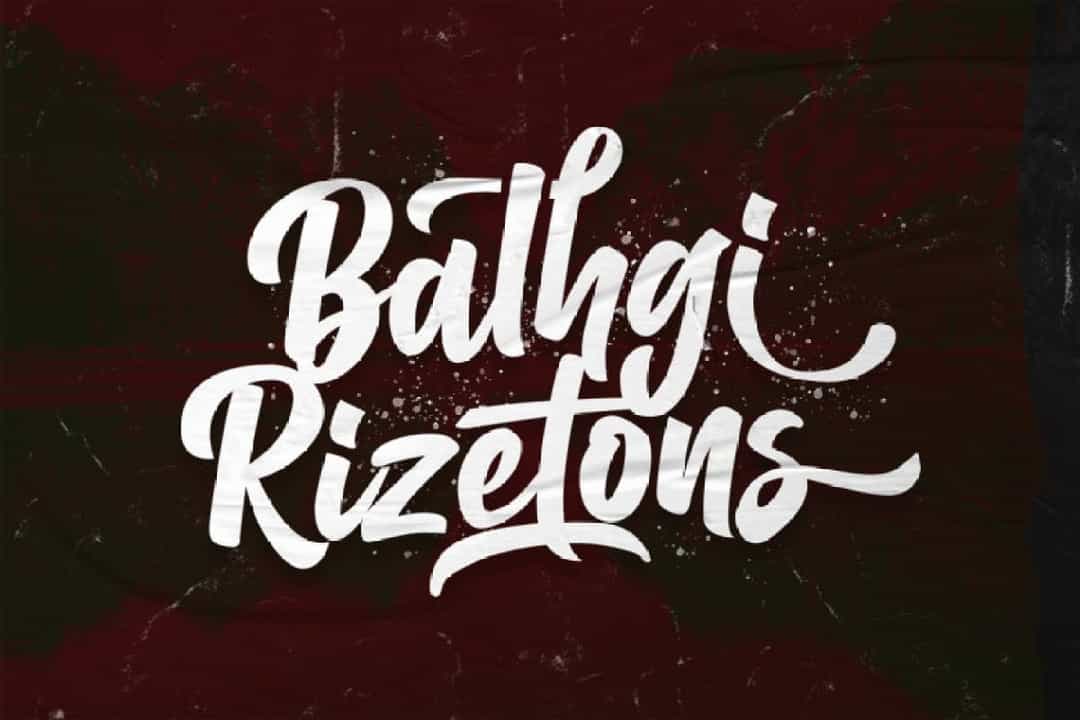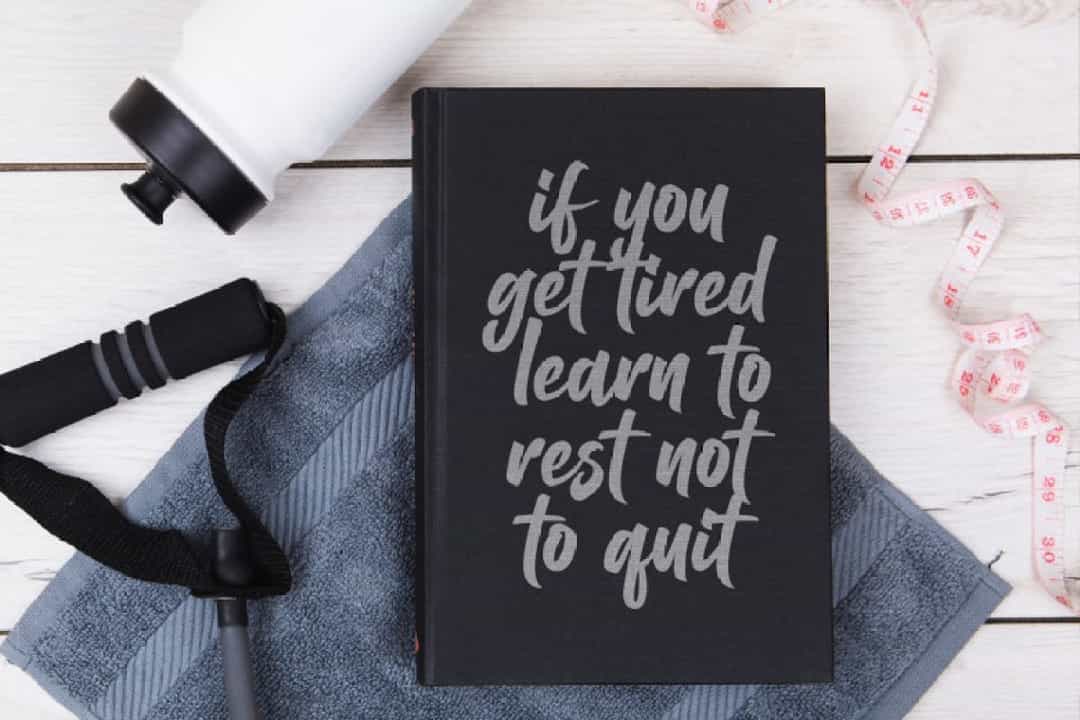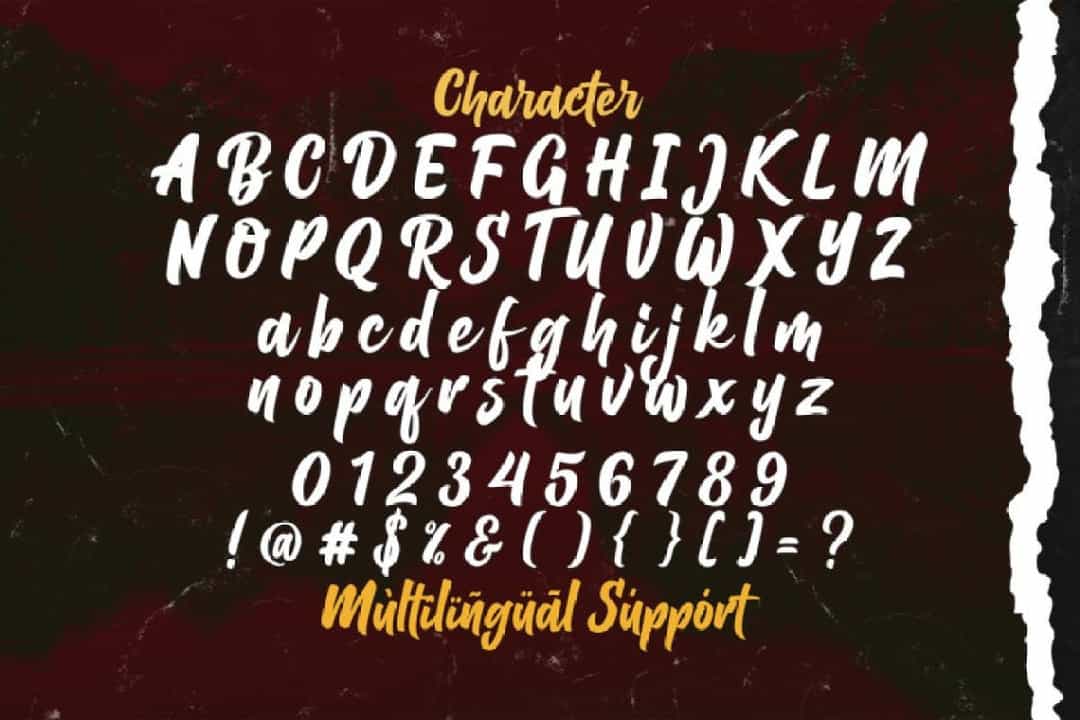
Discover Balhgi Rizetons Bold Script Font, part of the Calligraphy Handwritten Script collection—a versatile and unique font perfect for adding a personal touch to your projects. Download it for free and enjoy crafting designs with style, from invitations to social media posts. This font is available exclusively for personal use, giving you the freedom to create without limits. Unlock your creativity with Balhgi Rizetons Bold Script Font today!
Balhgi Rizetons are a set of handwritten script fonts that have a certain flare and style to them in that they look handwritten. These are the perfect fonts to use in all of your valued works! Before you use this unique yet evergreen font to design your projects, be sure to draw inspiration from its design!